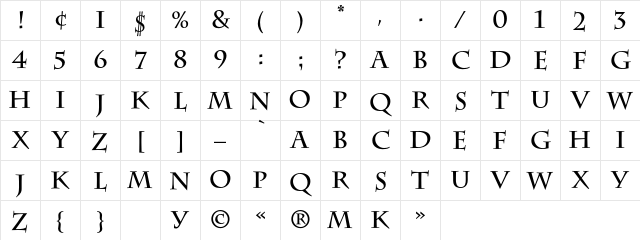
Complete CharlemagneC Regular glyph index. Displaying only characters natively supported by CharlemagneC Regular font.
CharlemagneC is a composed and adaptable typeface that performs quietly and consistently across a wide range of design contexts.